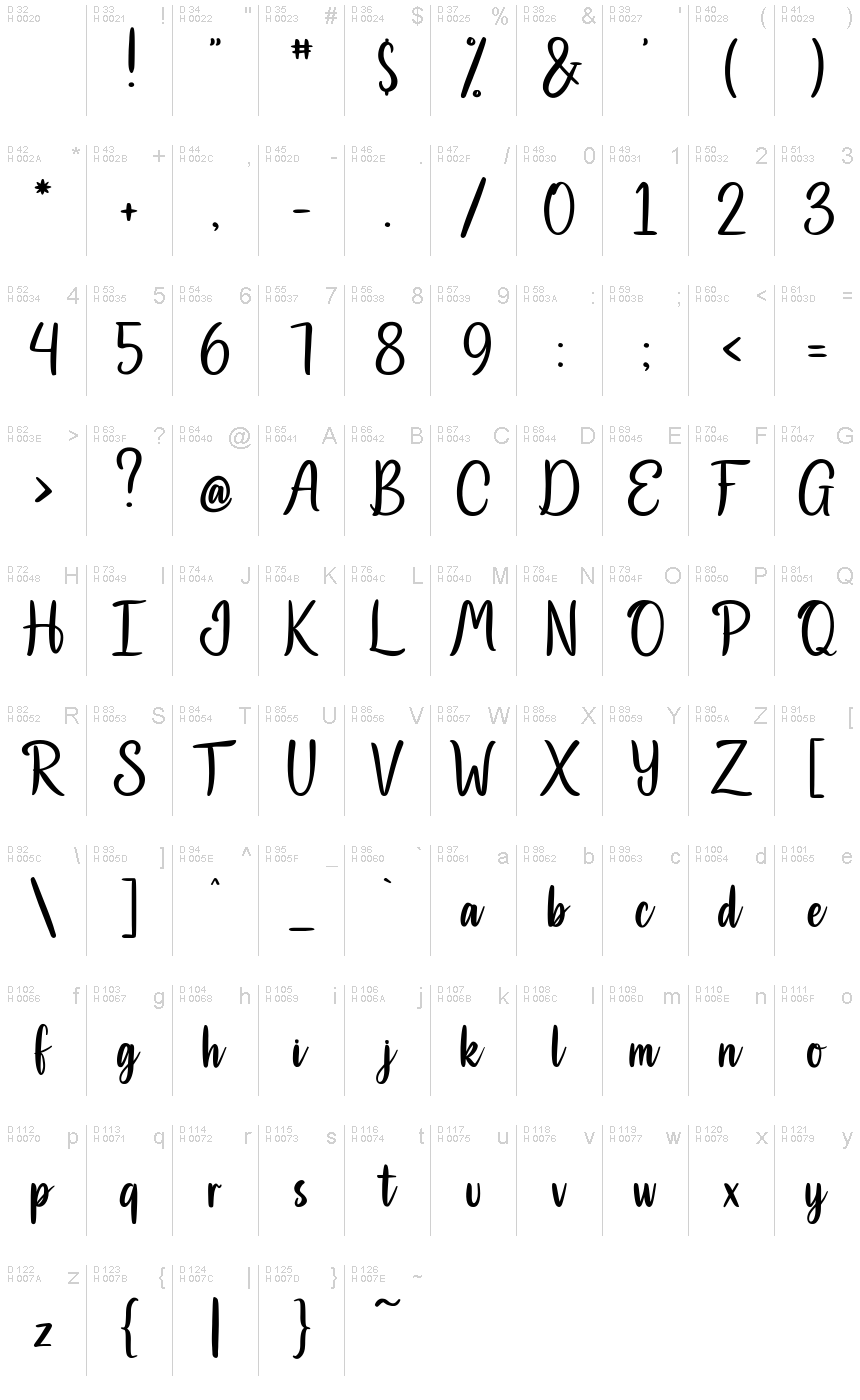
Camellia in Easter
Camellia in Easter, designed by Cat.B, embodies the warmth and charm of a personal touch with its handwritten style. This font dances with a casual elegance, featuring fluid strokes that suggest a sense of individuality and creativity. Its characters exhibit a natural variation in thickness, reminiscent of traditional ink pen writing, which adds an authentic and inviting feel to any text it graces.
Perfect for designs that require an intimate and bespoke essence, Camellia in Easter shines in applications such as invitations, greeting cards, and branding materials for boutique businesses. Its stylistic nuances make it particularly suited for projects that aim to convey personality and artisanal quality.